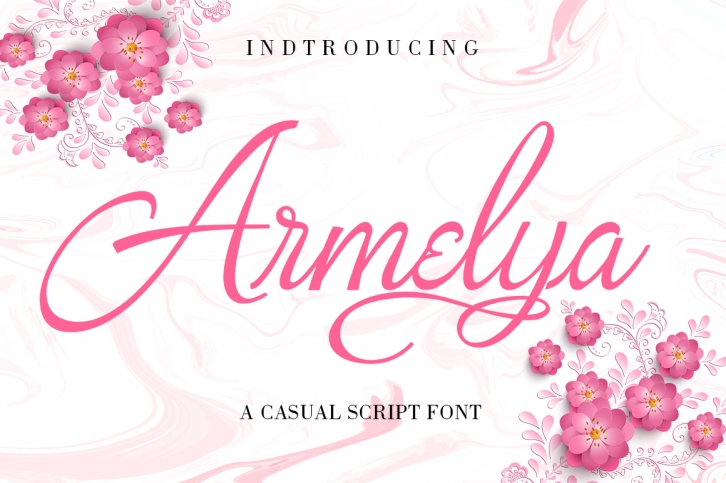
Armelya is a beautiful font that was designed by Ayeela studio. It's a great choice for designers and creatives who need such a font. It was released on January 16, 2019 and the file size is 19.31 MB. Armelya may give a more youthful, expressive and casual look to your project. It is a very beautiful, refined, elegant, and high-quality font.